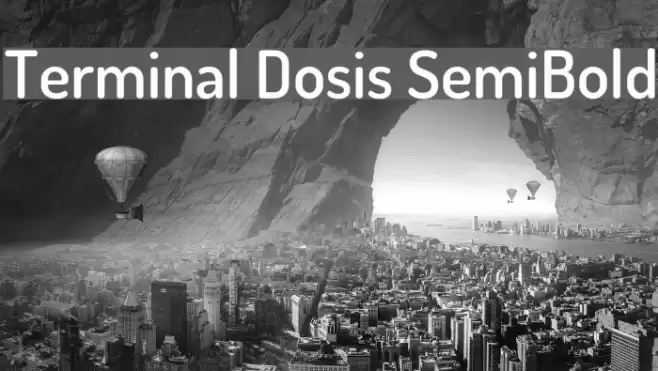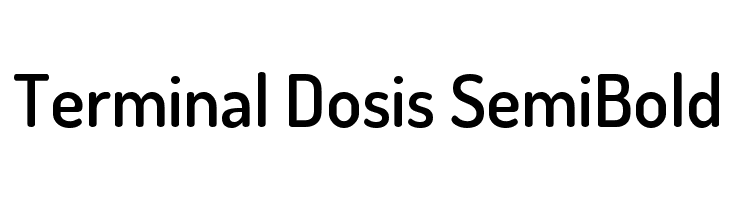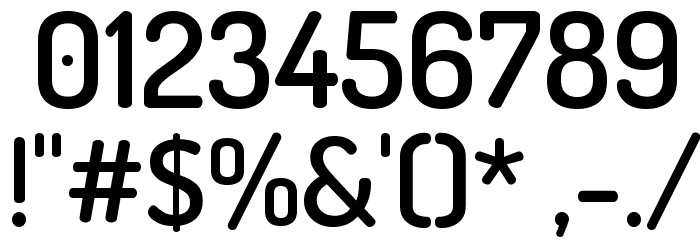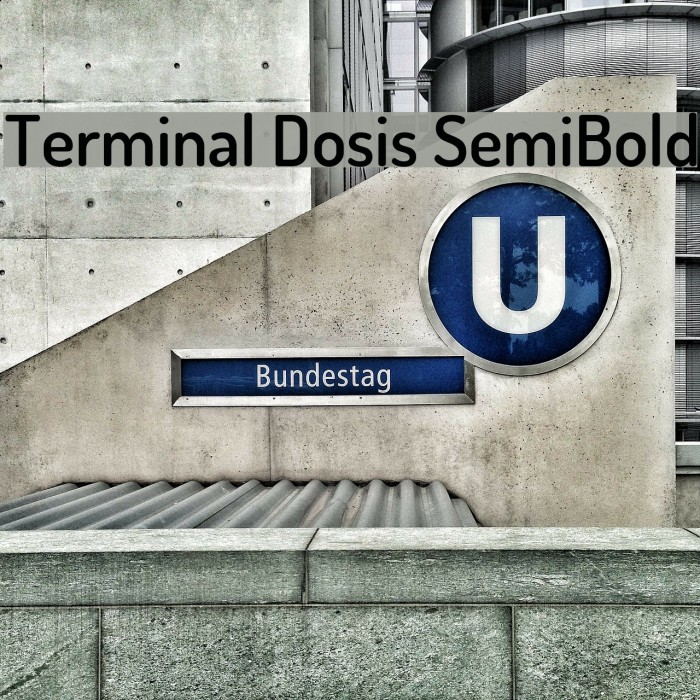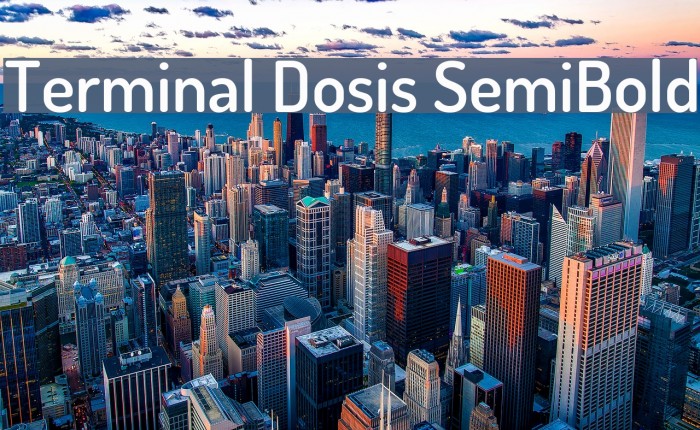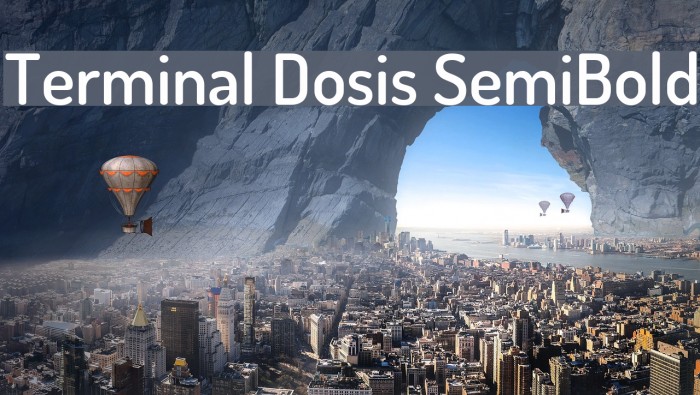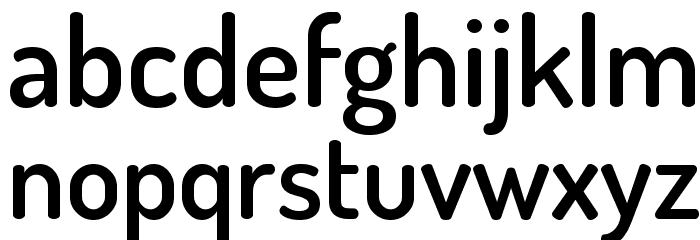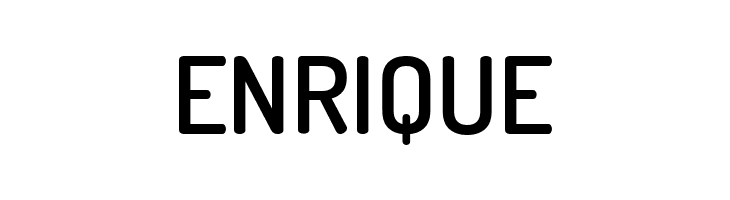
Terminal Dosis SemiBold
This font features a clean, rounded sans-serif style with a modern and friendly appearance. The characters are uniform in width, providing a balanced and harmonious look. The rounded edges and smooth curves give it a soft and approachable feel, making it suitable for a variety of design applications. The uppercase and lowercase letters maintain consistent proportions, ensuring readability and clarity. The numerals and special characters are designed with the same rounded aesthetic, contributing to a cohesive overall style.
A modern, rounded sans-serif font with a friendly and approachable style.
- Proposed Projects: Ideal for web design, app interfaces, branding, and advertising materials where a modern and friendly tone is desired.